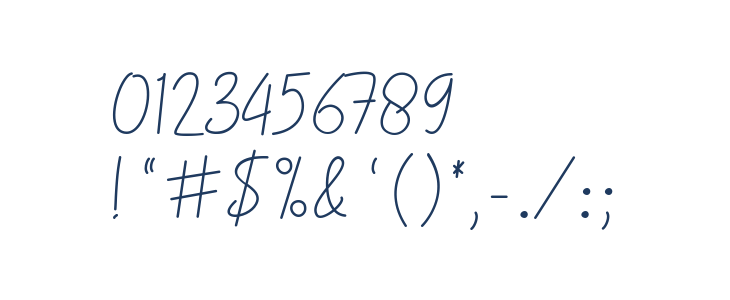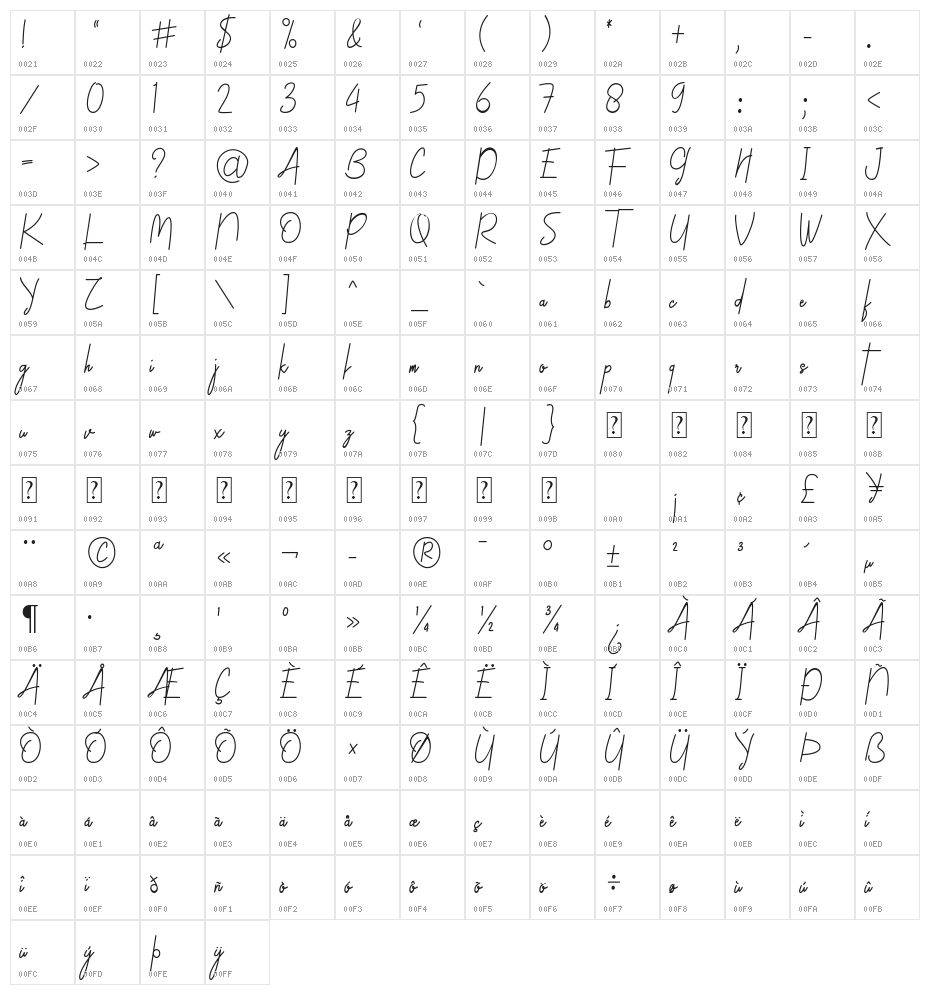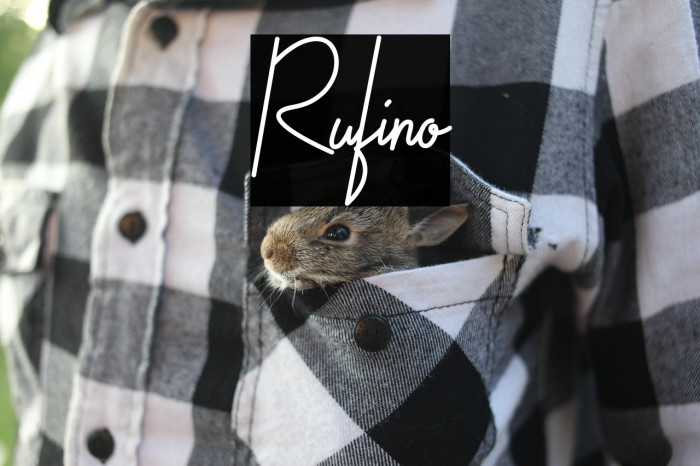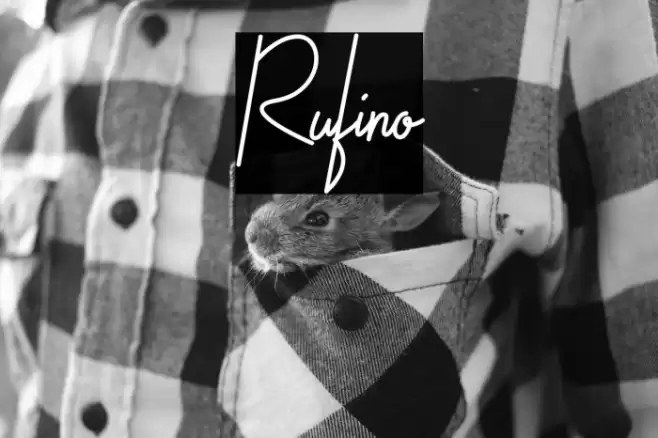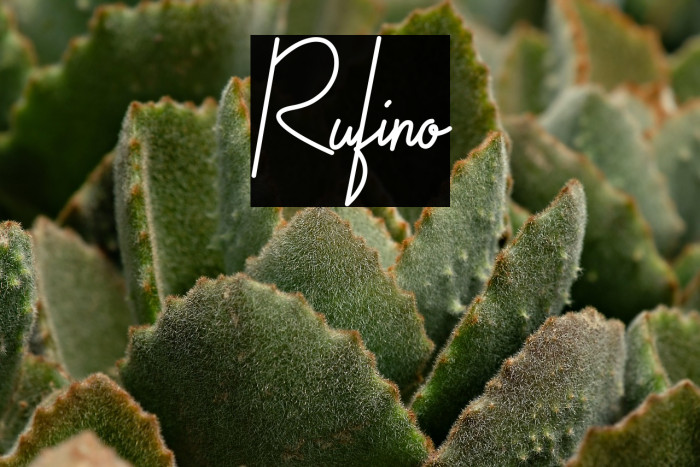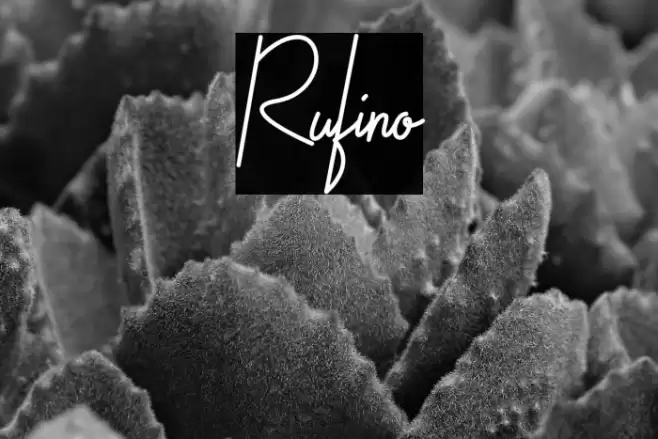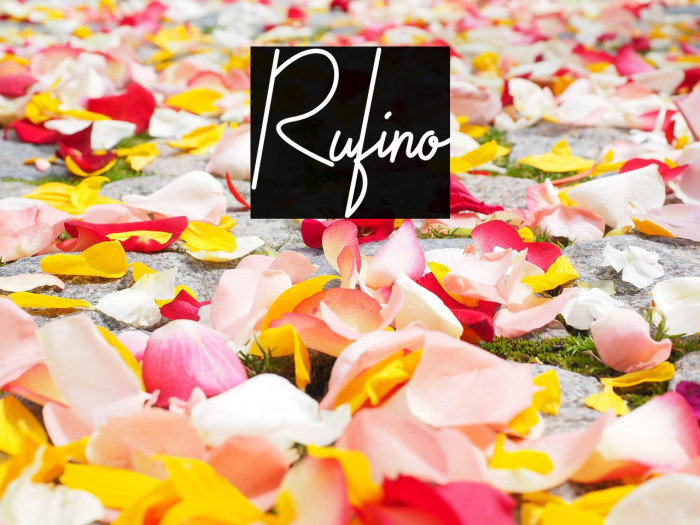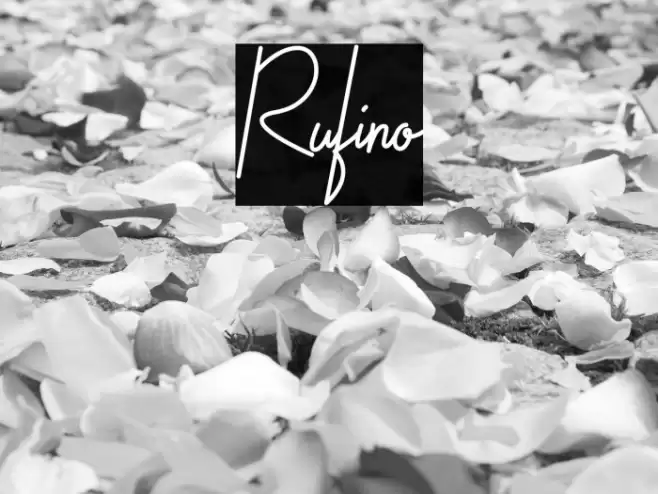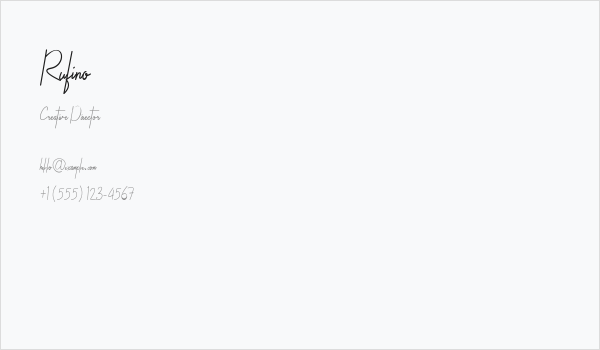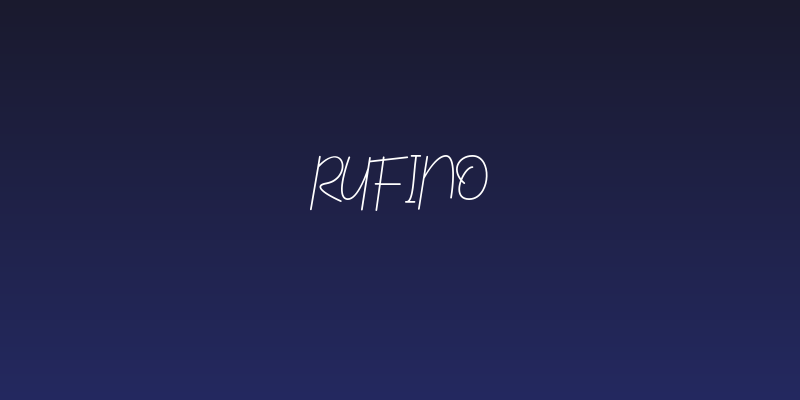
Rufino Font
This font features a playful and dynamic handwritten style with a casual, flowing appearance. The uppercase letters are tall and slender, with a slight slant that adds a sense of movement. The lowercase characters maintain a consistent style, with some letters featuring loops and curves that enhance the handwritten feel. The numerals are clear and easy to read, matching the overall aesthetic of the font. Special characters are included, maintaining the same playful and informal style. This font is versatile, suitable for projects that require a personal touch.